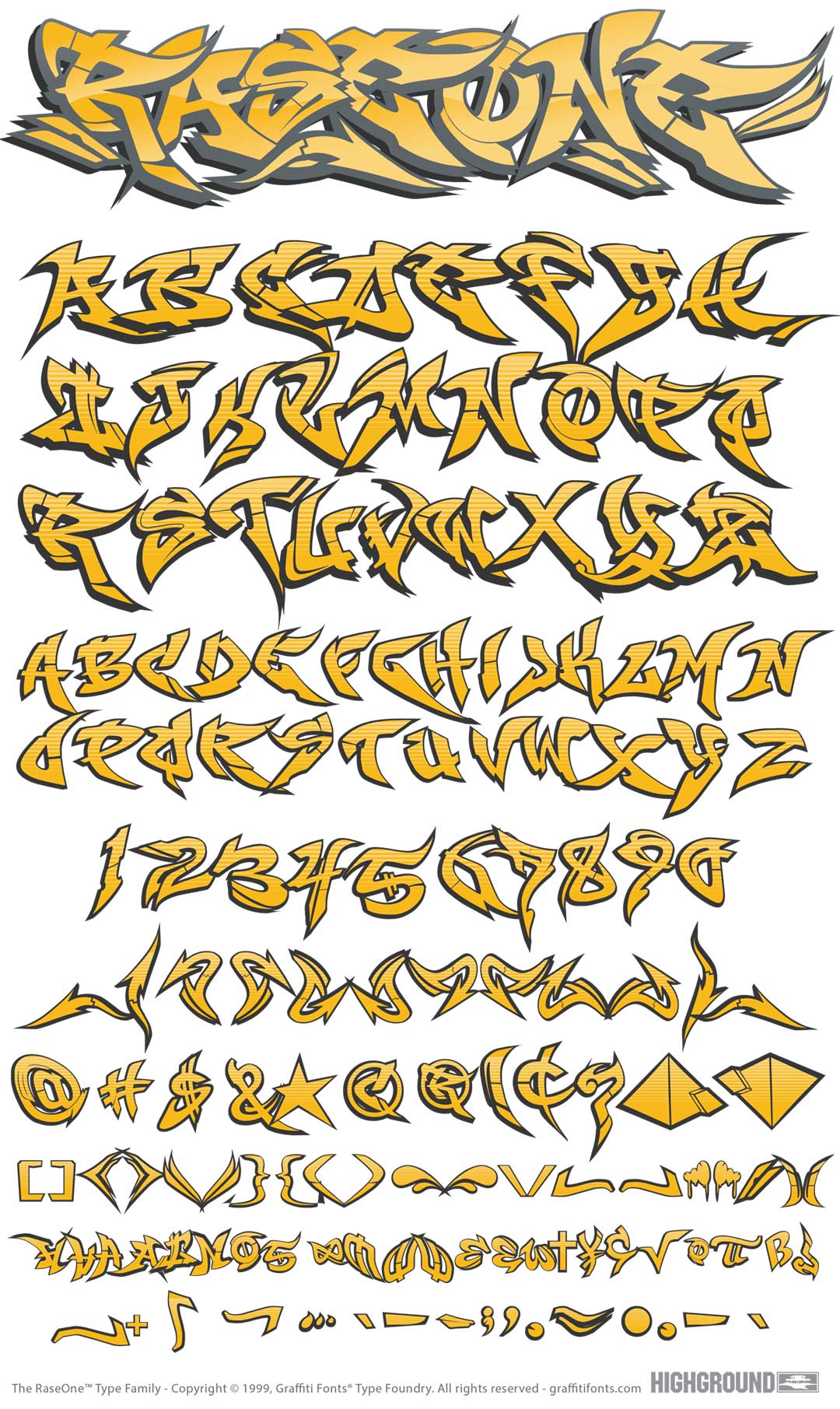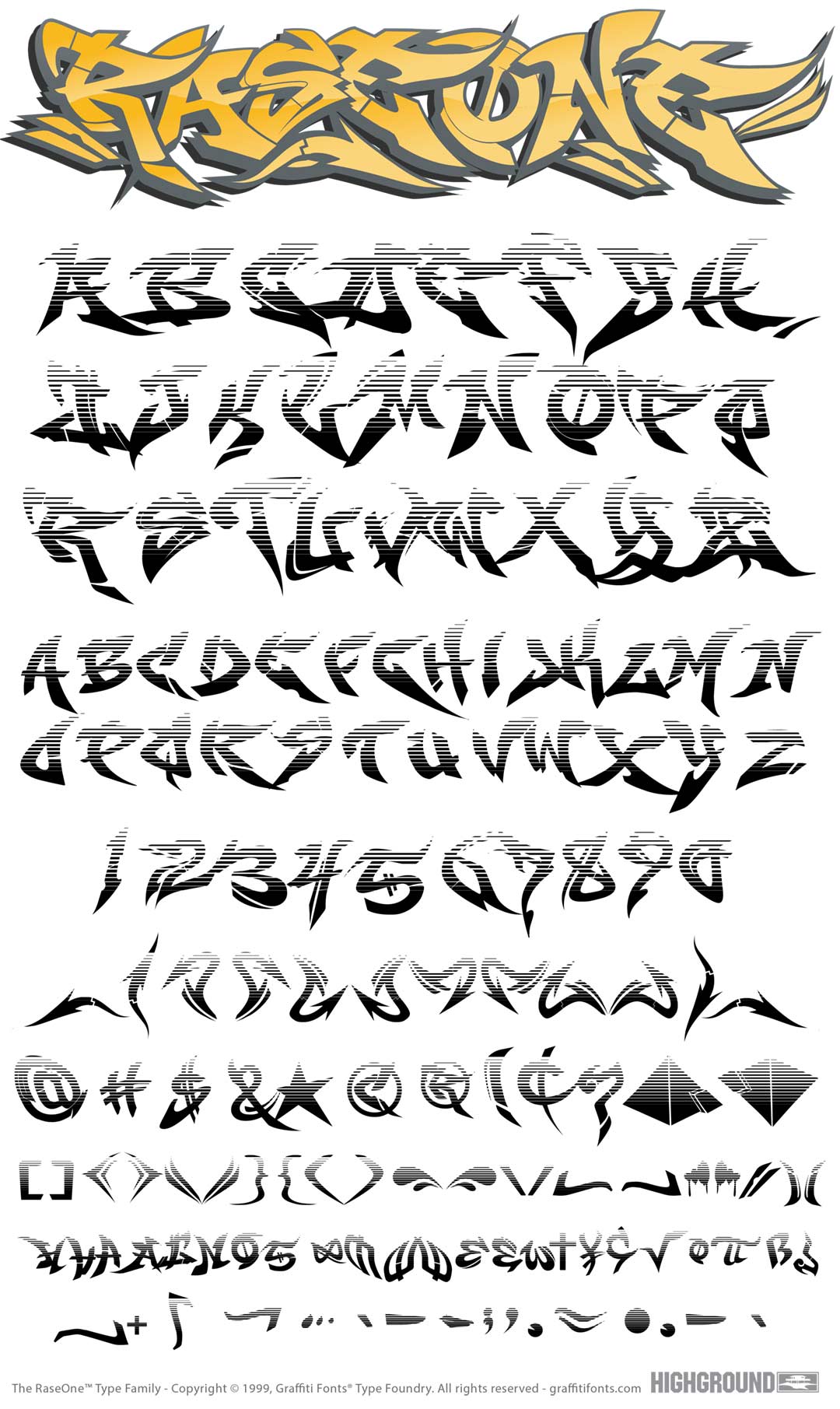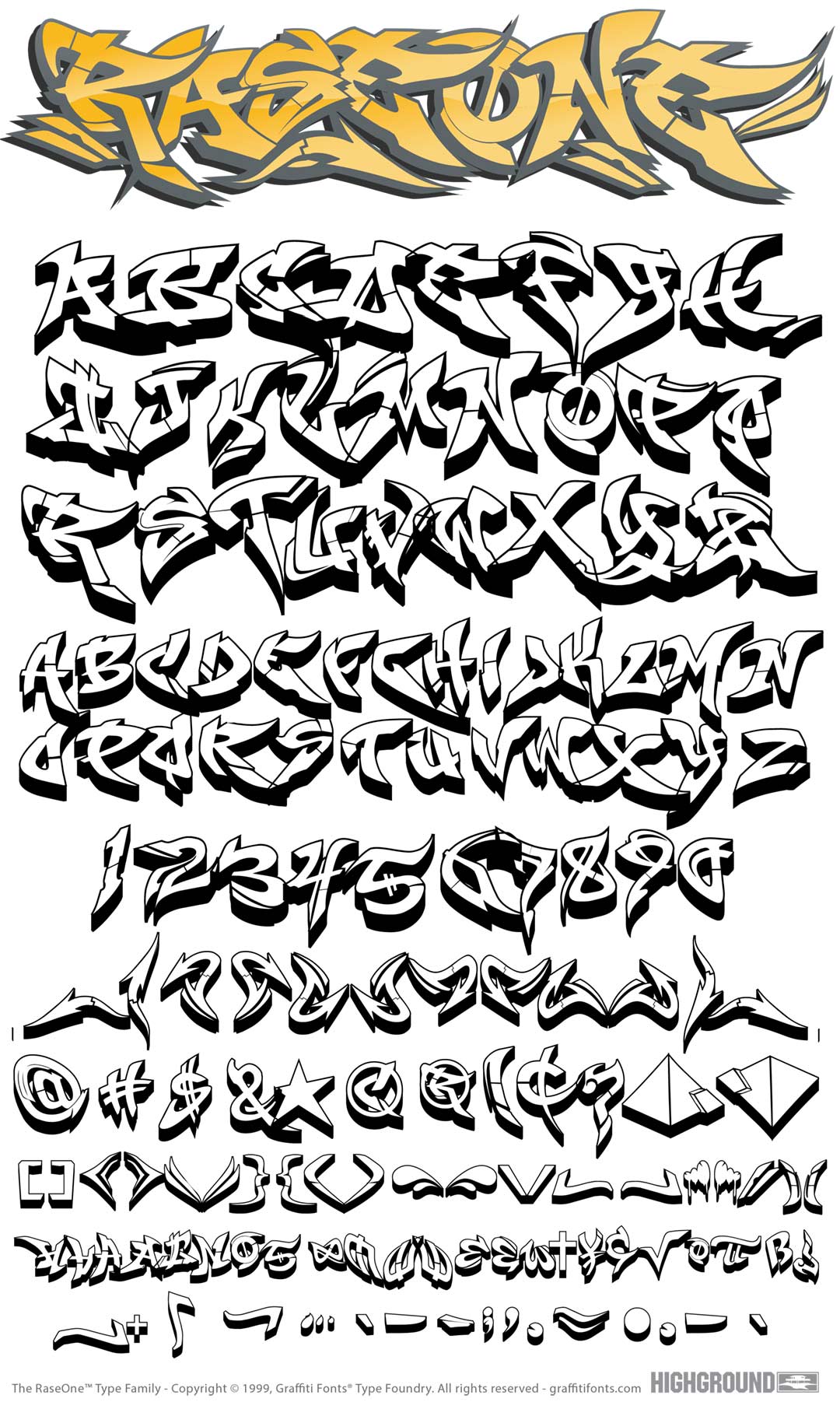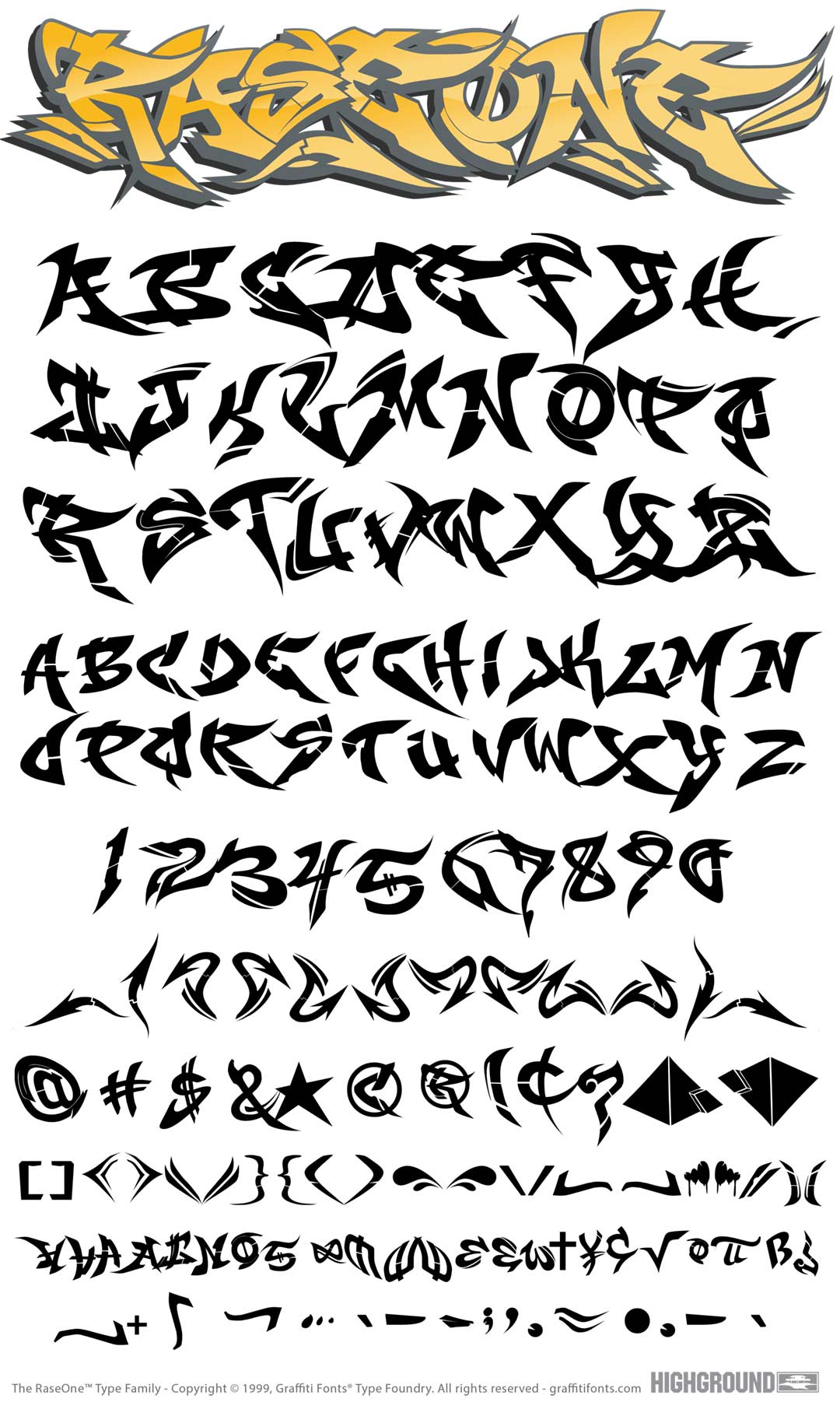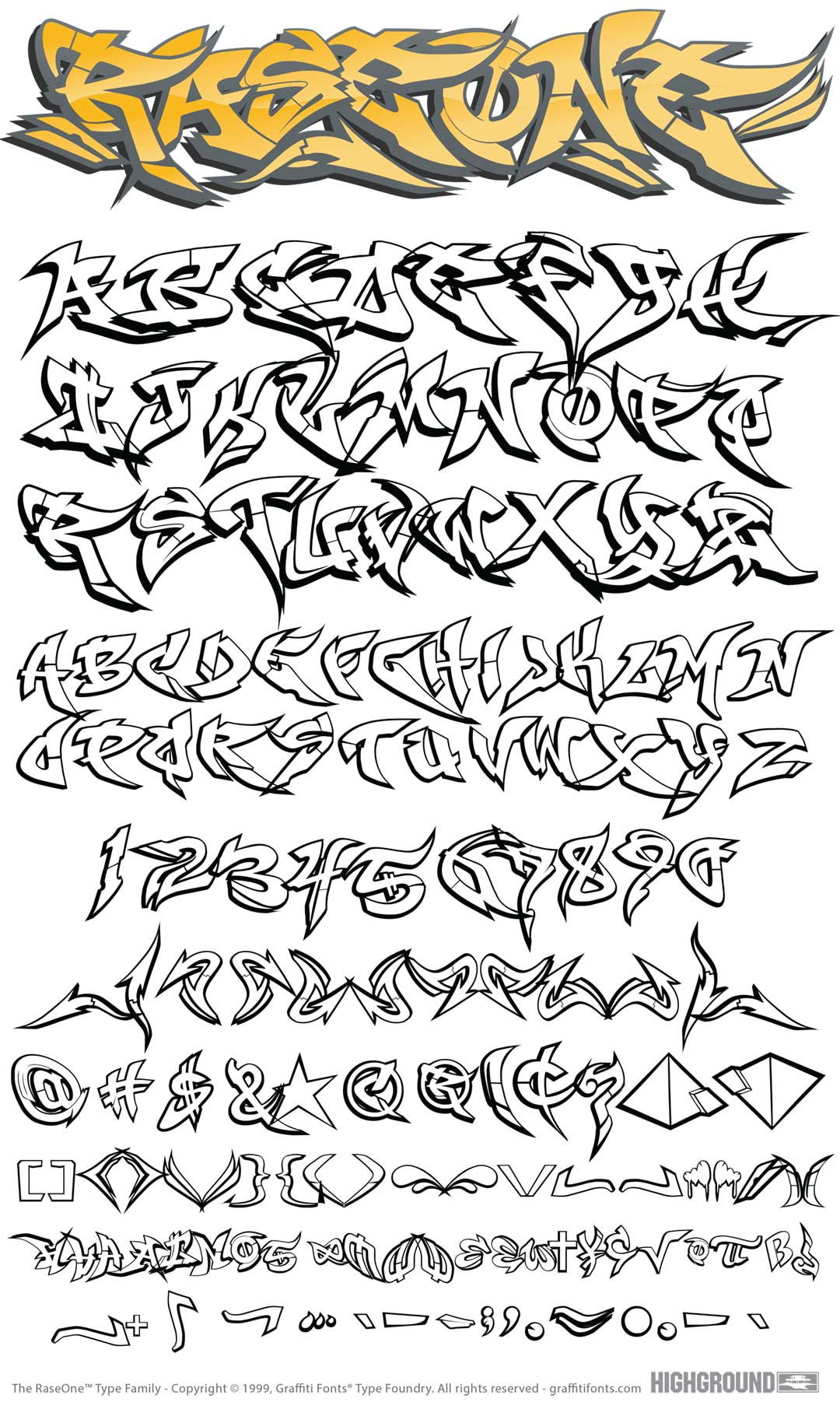
RaseOne Font
RaseOne Graffiti Alphabet
RaseOne Graffiti Font Family
The Raseone font family was one of our first typefaces. Created in 1999 Raseone was among the first few graffiti style fonts ever created. Each of the 5 styles; original, fill, outline, fat 3d & fade contains 238 characters. 2 unique graffiti alphabets, numbers, punctuation, symbols, arrows & flourishes are all included. The 5 styles in this layered type system can be stacked to create 2d & 3d outline & fill effects. A variety of icons & digbats are also included along with some multi language support. Hand drawn artwork was traced manually to create this authentic, modern, wildstyle graffiti font family.